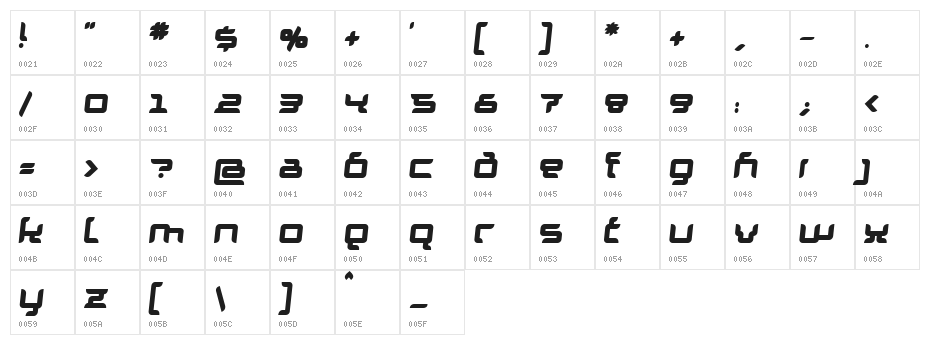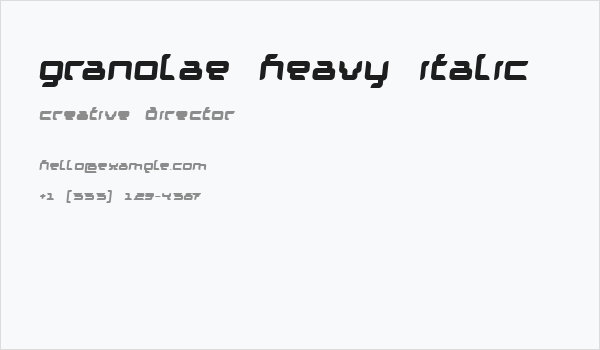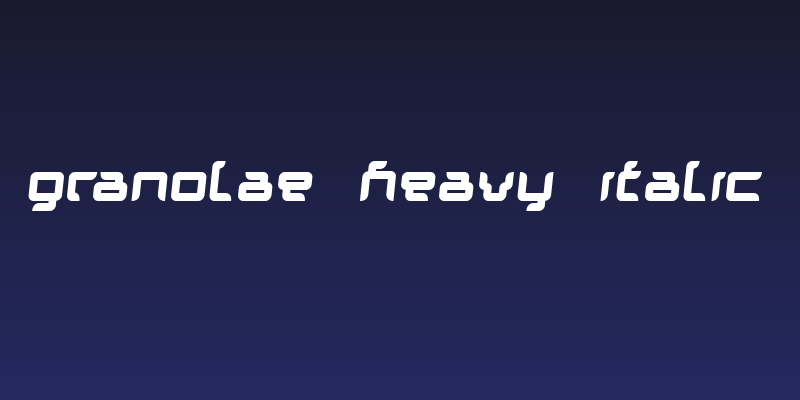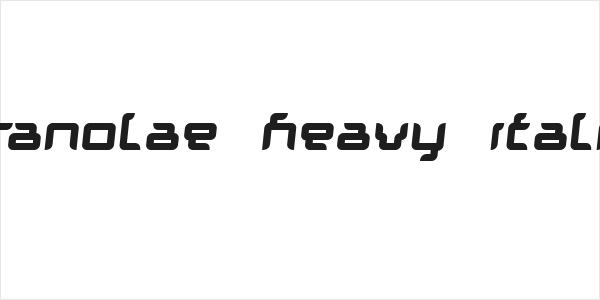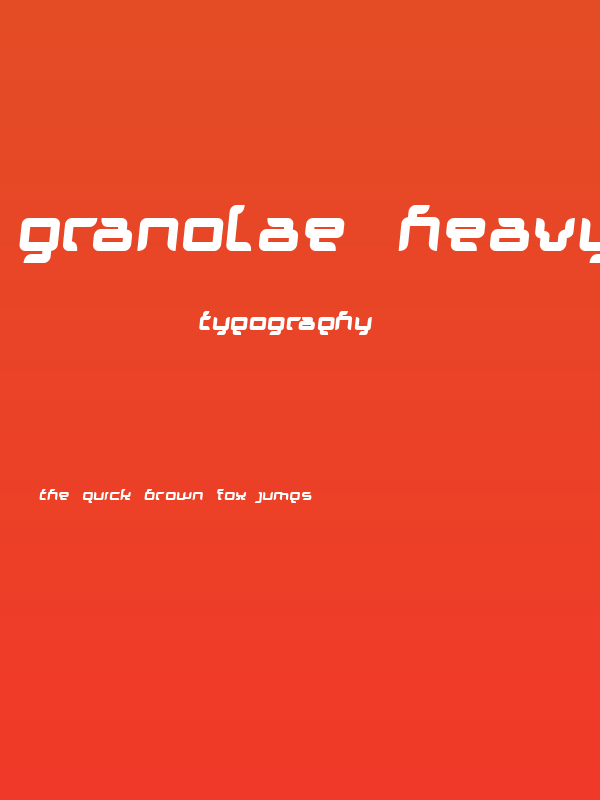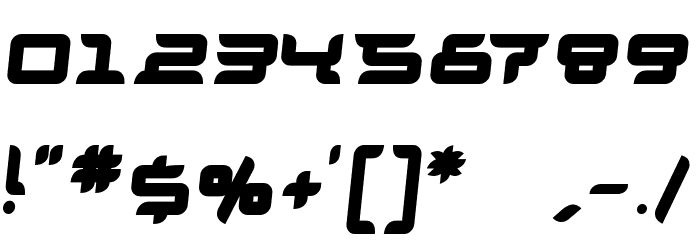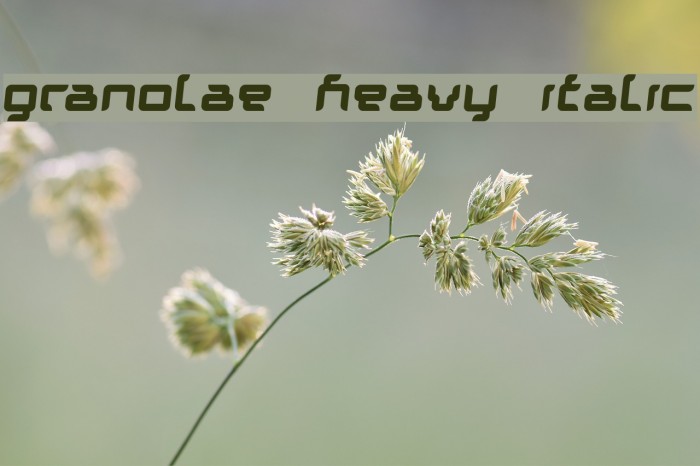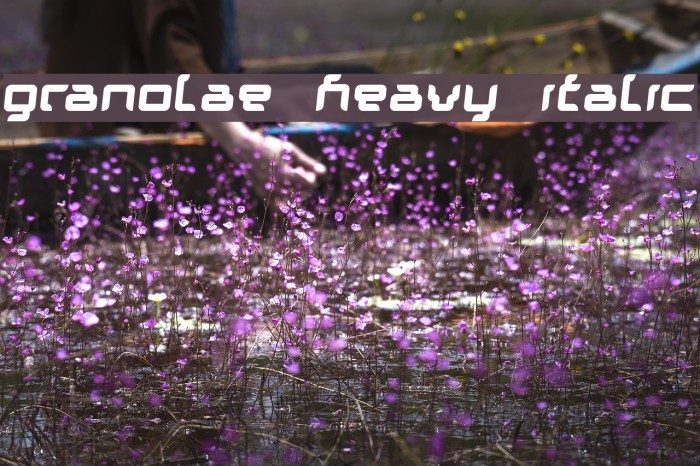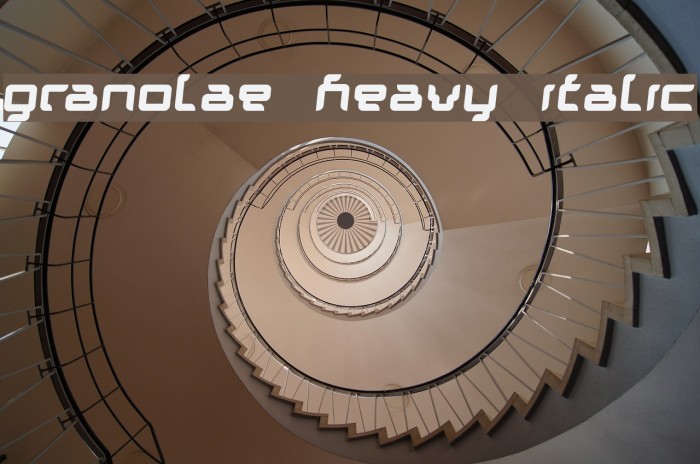
Granolae Heavy Italic Font
Granolae Heavy Italic Description
This font features a bold and italicized style with a modern, geometric appearance. The characters are distinct with a slightly condensed form, giving them a compact look. The strokes are thick and uniform, providing a strong visual impact. The angular design of the letters adds a futuristic touch, making it suitable for contemporary projects. The font maintains a consistent weight throughout, ensuring readability while adding a unique flair. Its boldness and italic slant make it stand out, ideal for attention-grabbing headlines or branding materials.
| Proposed Projects | Ideal for branding, headlines, posters, and any project requiring a modern and bold aesthetic. |